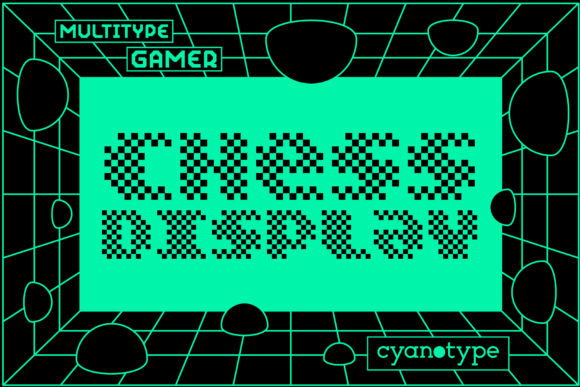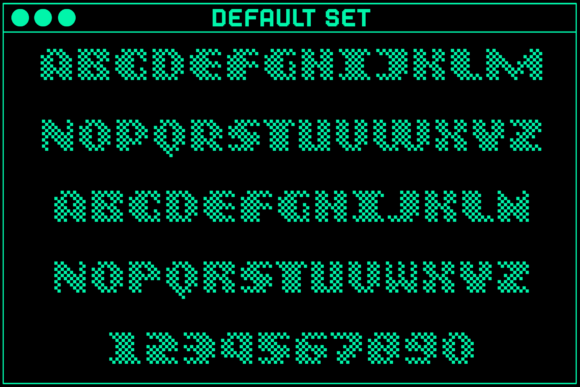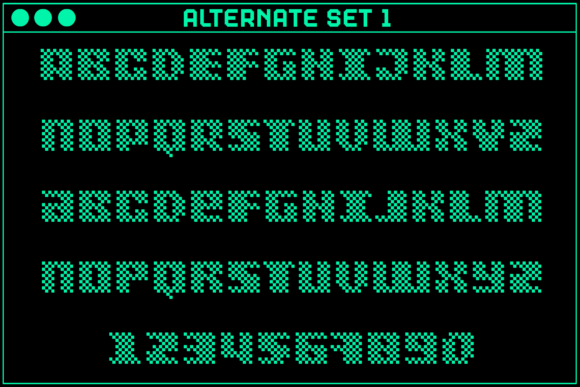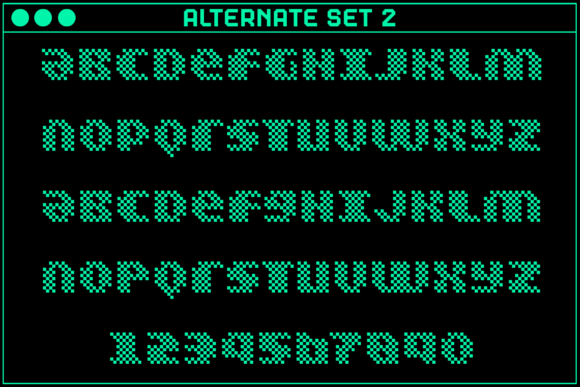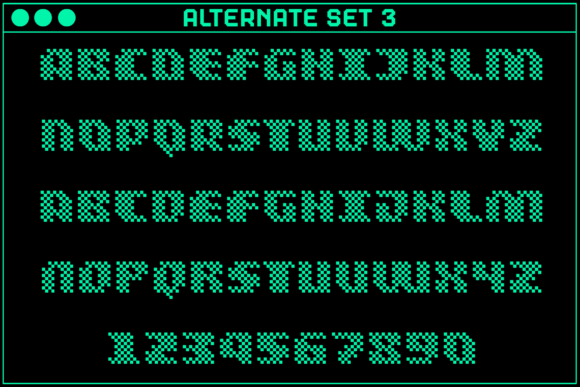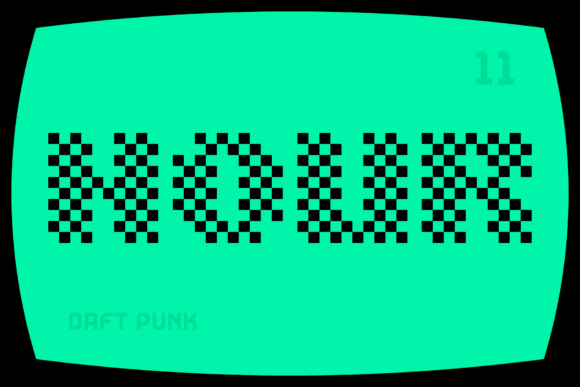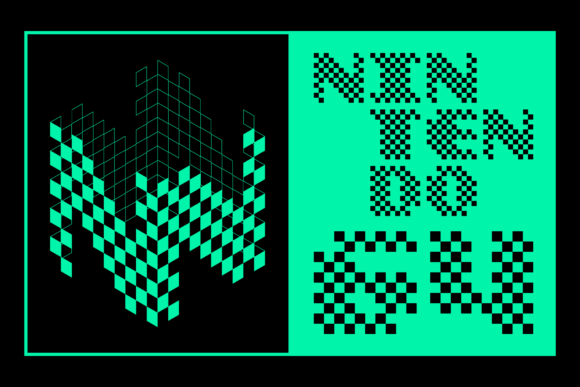
Giving Your Designs a Pixelated Punch
Have you ever been brainstorming a new project and suddenly, out of the blue, an idea strikes? Maybe it’s a quirky font, a bold color scheme, or a fresh design style that sparks your creativity. For us designers, those ‘aha!’ moments are what drive us to create something truly unique. And for those who crave that perfect blend of retro and modern, I’ve got just the thing: the Gamer Chess Font.
This cool, pixelated display font is the perfect addition to any design. With its distorted, trendy touch, Gamer Chess Font adds a level of visual interest that’s hard to find elsewhere. And with its PUA encoding, accessing all glyphs and swashes is a breeze. Whether you’re a seasoned pro or just starting out, Gamer Chess Font is a valuable tool in your design arsenal. It’s time to level up your designs and give them a pixelated punch!
Gamer Chess Font Key Features
- Unique Chess Symbols: Gamer Chess Font features a comprehensive set of unique chess symbols, including pieces, ranks, and special moves, designed specifically for chess enthusiasts and gamers.
- High-Quality Graphics: Gamer Chess Font features high-quality graphics, including detailed piece designs and intricate board layouts, making it an ideal choice for chess games, tournaments, and publications.
Gamer Chess Font Review
I recently had the chance to work with the Gamer Chess Font, and I’m sharing my honest thoughts on it. Here’s what I liked and didn’t like.
- The font is well-designed for a gaming theme, with bold lines and a pixelated aesthetic that’s reminiscent of classic video games.
- The font is quite large, which can make it difficult to use in situations where space is limited.
- The pixelated aesthetic can be distracting or overwhelming in some situations.
- The font may not be suitable for formal or professional applications due to its gaming theme.
Overall, I think the Gamer Chess Font is a solid choice for gaming or entertainment-related projects. While it has some limitations, its customizability and compatibility make it a great option for designers who want to add a unique touch to their work. However, it may not be the best choice for more formal or professional applications.
Gamer Chess Font Practical Application Guide
To get the most out of the Gamer Chess Font, try using it in combination with bold or italic text to create emphasis. You can also experiment with different font sizes and colors to create visual interest.
The Gamer Chess Font is perfect for creating eye-catching graphics for gaming-related content, such as chess tournament flyers, gaming blog posts, or social media graphics. It’s also great for adding a touch of personality to presentations, reports, or other documents.